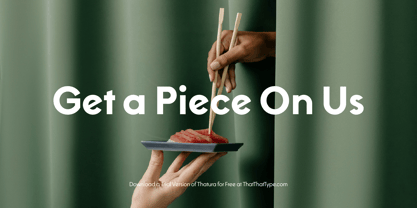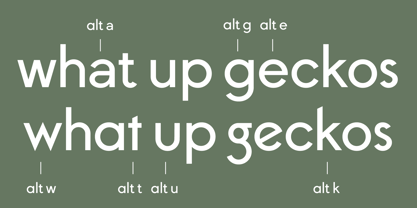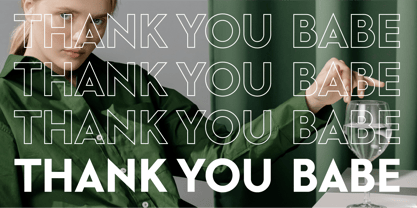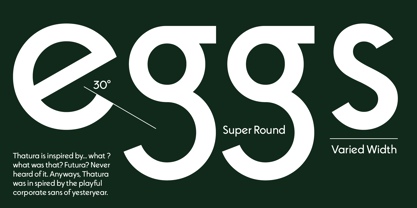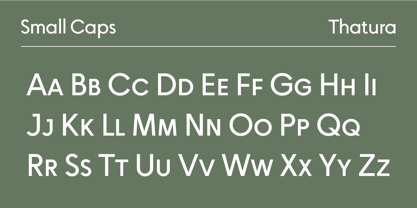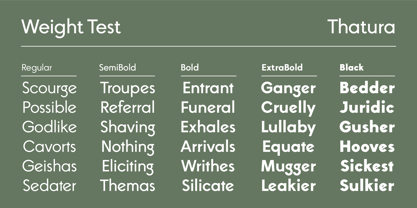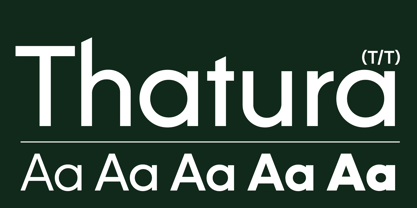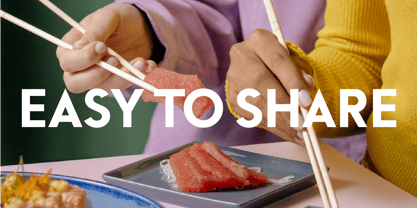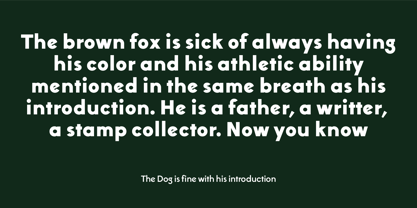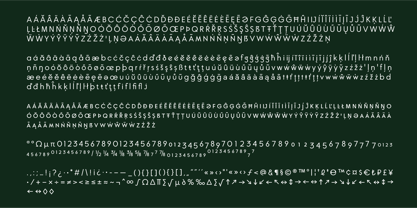
Thatura
von That That Creative
Die Schriftfamilie Thatura wurde von Harbor Bickmore entworfen und von That That Creative veröffentlicht. Thatura enthält 5 Stile und Familienpaketoptionen.
Thatura is a geometric sans family that is inspired by some font I saw once but can’t remember its name… but That’s not important. Thatura is kinda like that font but with a little more quirk to it and a load more customization options. From sharp corners and ascenders to off axis “e”s and super playful ”g”s. You can pump up the fun factor or dial it back to a more tame feel depending on what you need. This retro vibe is perfect for your next nostalgic project.
Designer: Harbor Bickmore
Herausgeber: That That Creative
Foundry: That That Creative
Eigentümer des Designs: That That Creative